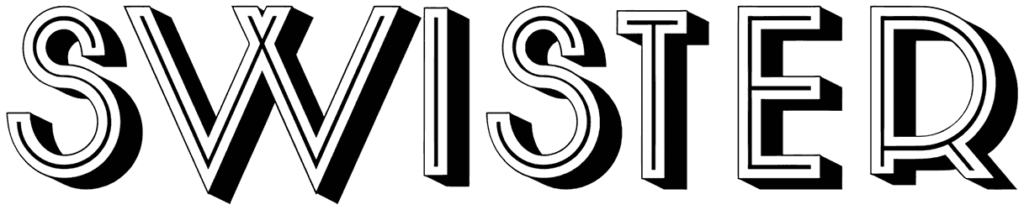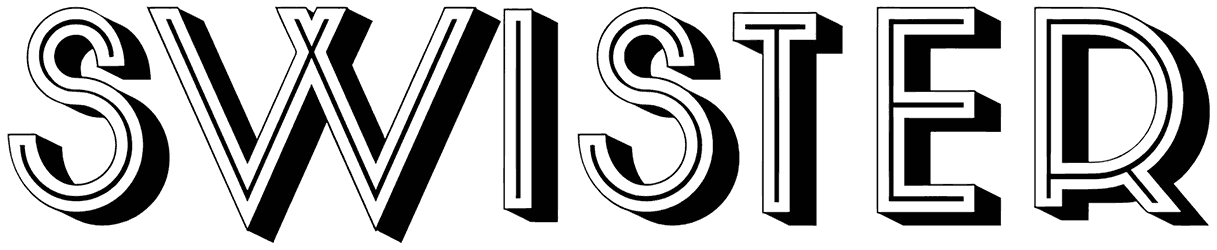
Swister Font
Swister is an excellent font that immediately grabs your attention. This font has a unique theme and may help you in several situations. For instance, Swister can be helpful for logos, advertisements, and applications; however, it does not support lowercase letters, numbers, and symbols.
This Art Deco font’s letters have an industrial style with shadow, making them feel 3D. Moreover, they have sharp edges and sturdy forms, sending a powerful vibe. So give it a try and impress your audience.